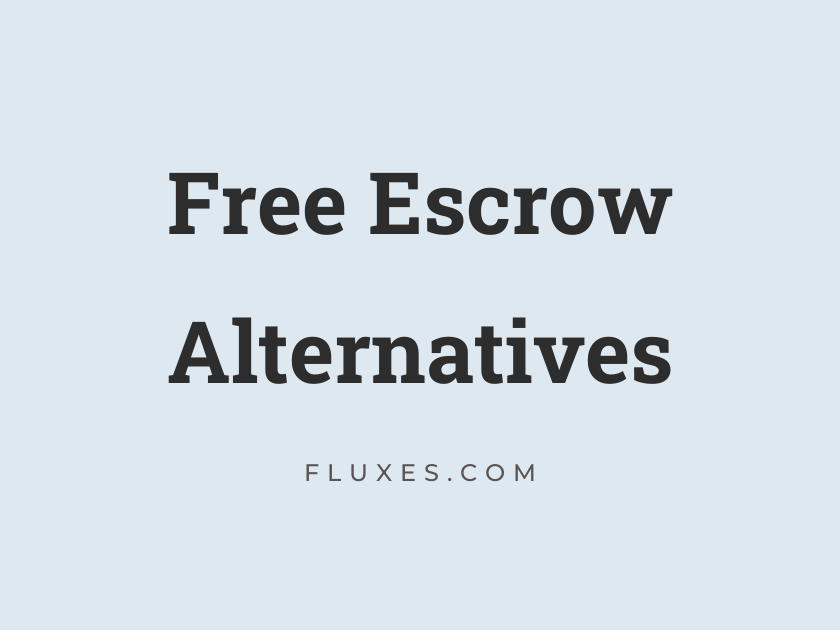
14 Best Free Fonts Alternatives to Escrow
Escrow has long been a favorite in corporate, legal, and financial branding for its geometric slab serifs and confident, businesslike warmth. Designers searching for free fonts similar to Escrow are usually after that same mix of sturdiness and approachability, a slab serif that reads as trustworthy on a contract header yet still feels contemporary on a website or app. Google Fonts has a strong bench of slab serifs that can stand in for Escrow across branding, editorial, and financial or legal-adjacent projects, without the licensing cost.
1. Roboto Slab
The most obvious starting point for anyone hunting a free Escrow alternative, Roboto Slab pairs squared-off serifs with the same even, engineered rhythm that made Roboto itself so ubiquitous. It reads as neutral and dependable at body text sizes, which makes it a safe pick for financial dashboards, invoices, and legal documentation where clarity matters more than personality. Pair it with a plain sans like Roboto or Inter for a system that feels cohesive without being flat.
2. Zilla Slab
Zilla Slab was originally commissioned for Mozilla’s brand, and it carries a similar sense of engineering-driven precision. Its slabs are slightly rounded at the joints, softening what could otherwise be a cold, technical letterform.
3. Arvo
Arvo is one of the earliest slab serifs to gain traction on Google Fonts, and it still holds up as a clean, geometric option for headlines and titles. Bold weights carry real presence on a homepage banner, though the design can feel a touch stiff in long paragraphs, so it works best reserved for headers rather than body copy.
4. Bitter
Built specifically for on-screen reading, Bitter softens its slab serifs just enough to stay comfortable across paragraphs of contract language or policy text. It has a literary, slightly old-fashioned warmth that keeps dense legal or financial content from feeling sterile.
5. Rokkitt
Rokkitt leans friendlier and rounder than Escrow, with slabs that feel almost architectural in their geometric consistency. In lighter weights it turns understated and elegant, making it a good match for fintech interfaces that want to feel modern rather than institutional.
6. Aleo
Aleo started life as a companion to Lato, and that heritage shows in its balanced proportions and gentle contrast. It sits comfortably between a display slab and a text face, so it can carry a headline and then keep working in the paragraph beneath it without a jarring shift in tone.
7. Josefin Slab
Where most Escrow substitutes lean sturdy, Josefin Slab goes the opposite direction, with tall, narrow proportions and a vintage geometric feel reminiscent of 1920s display type. It is not built for dense paragraphs of fine print, but as a headline or logotype face for a boutique law firm or real estate brand, it brings unexpected refinement.
8. Bevan
Bevan is heavier and more compact than Escrow, with thick, confident slabs that were clearly built for short bursts of display text rather than paragraphs. It has a stamped, official quality that suits seals, badges, or headline treatments where authority needs to be felt instantly.
9. Sanchez
Sanchez brings a warmer, more humanist touch to the slab serif category, with letterforms that feel handcrafted rather than mechanical. It works well for brands that want the sturdiness of a slab without losing approachability, such as community banks or advisory services.
10. Trocchi
Trocchi is a quieter, more literary slab with old-style serif influences woven through its structure. It suits editorial layouts and long-form explainer content better than tight branding work, and it pairs nicely with a plainer grotesque for interface text.
11. Crete Round
As the name suggests, Crete Round softens every terminal into a gentle curve, giving it a friendlier, more conversational feel than Escrow’s crisper geometry. It reads well in headlines for consumer-facing financial products that want to feel human rather than corporate.
12. Coustard
Coustard is a thick, characterful slab with an almost hand-built irregularity to its curves, making it a poor choice for body text but a memorable one for a wordmark or a single bold statement on a landing page. Use it sparingly; its personality is strong enough to dominate a layout.
13. Alfa Slab One
Escrow earned its place in financial and legal branding through a careful balance of sturdiness and warmth, and that same balance is well represented across free Google Fonts slab serifs today. Whether the project calls for a strict, businesslike tone or something friendlier and more contemporary, there is a slab serif here that can carry the weight of an official document without ever feeling cold.